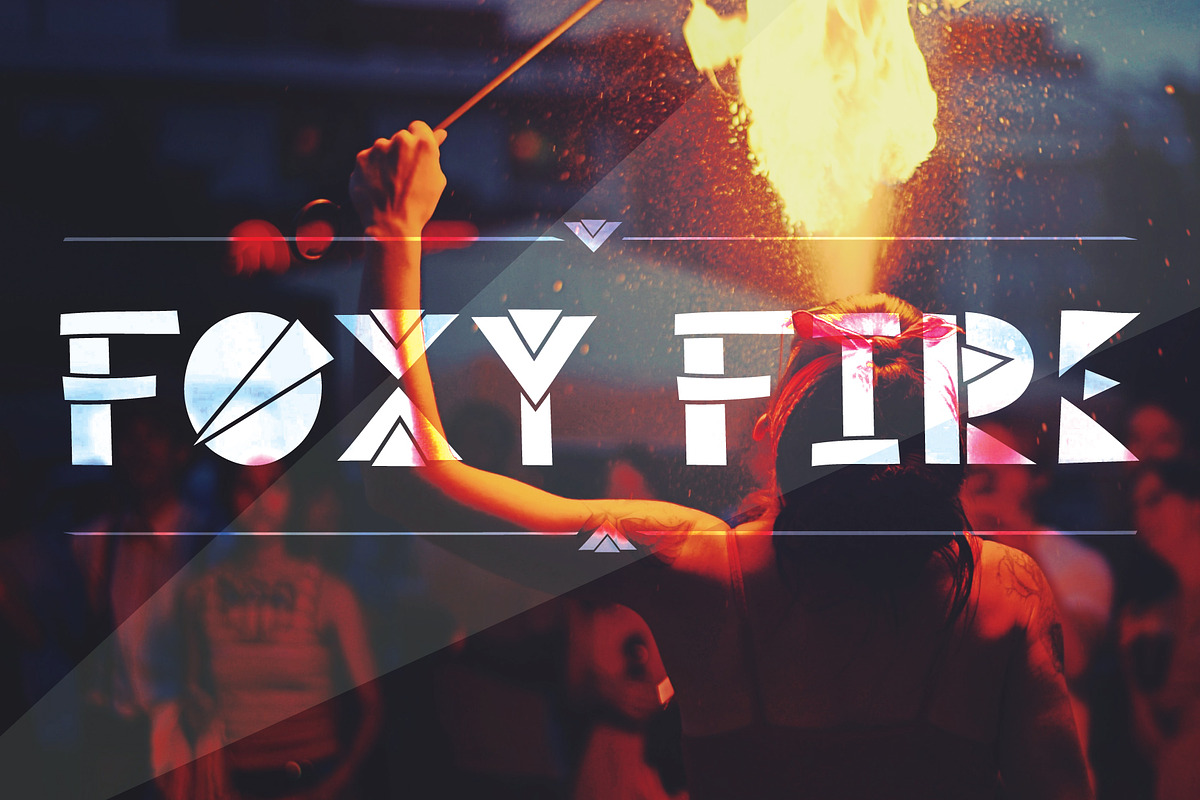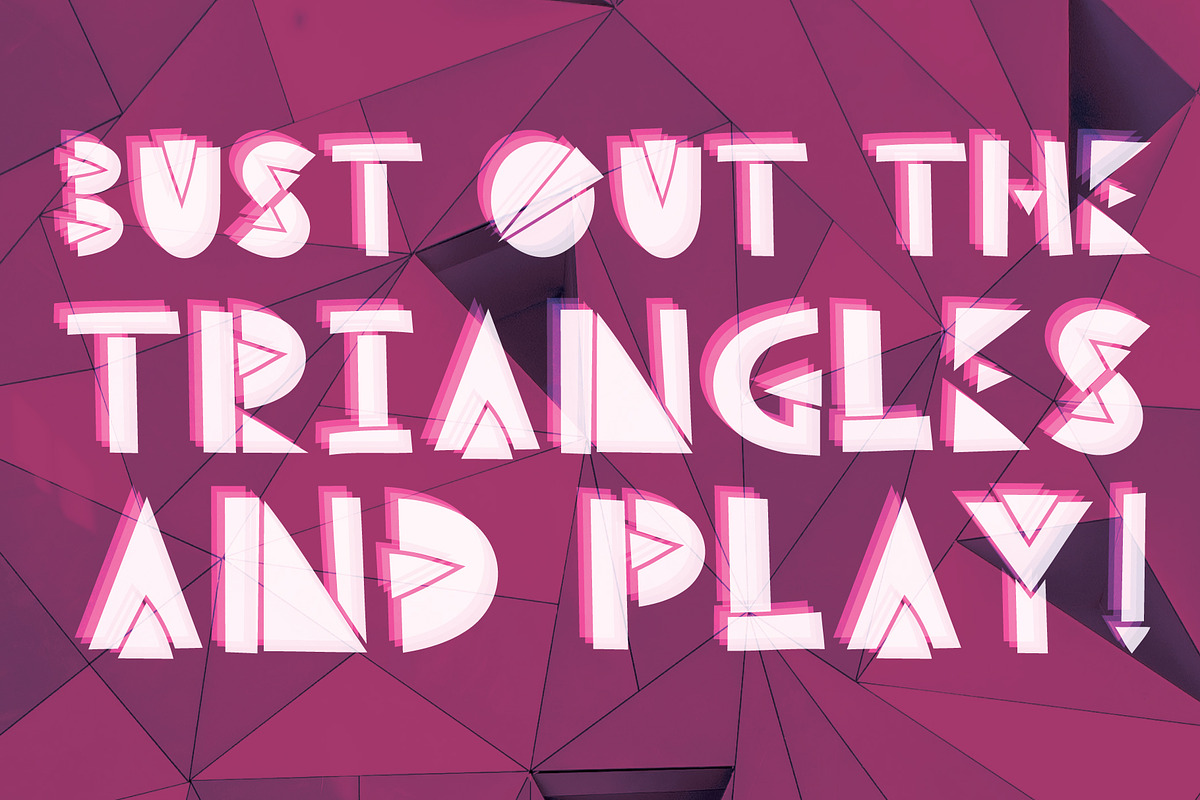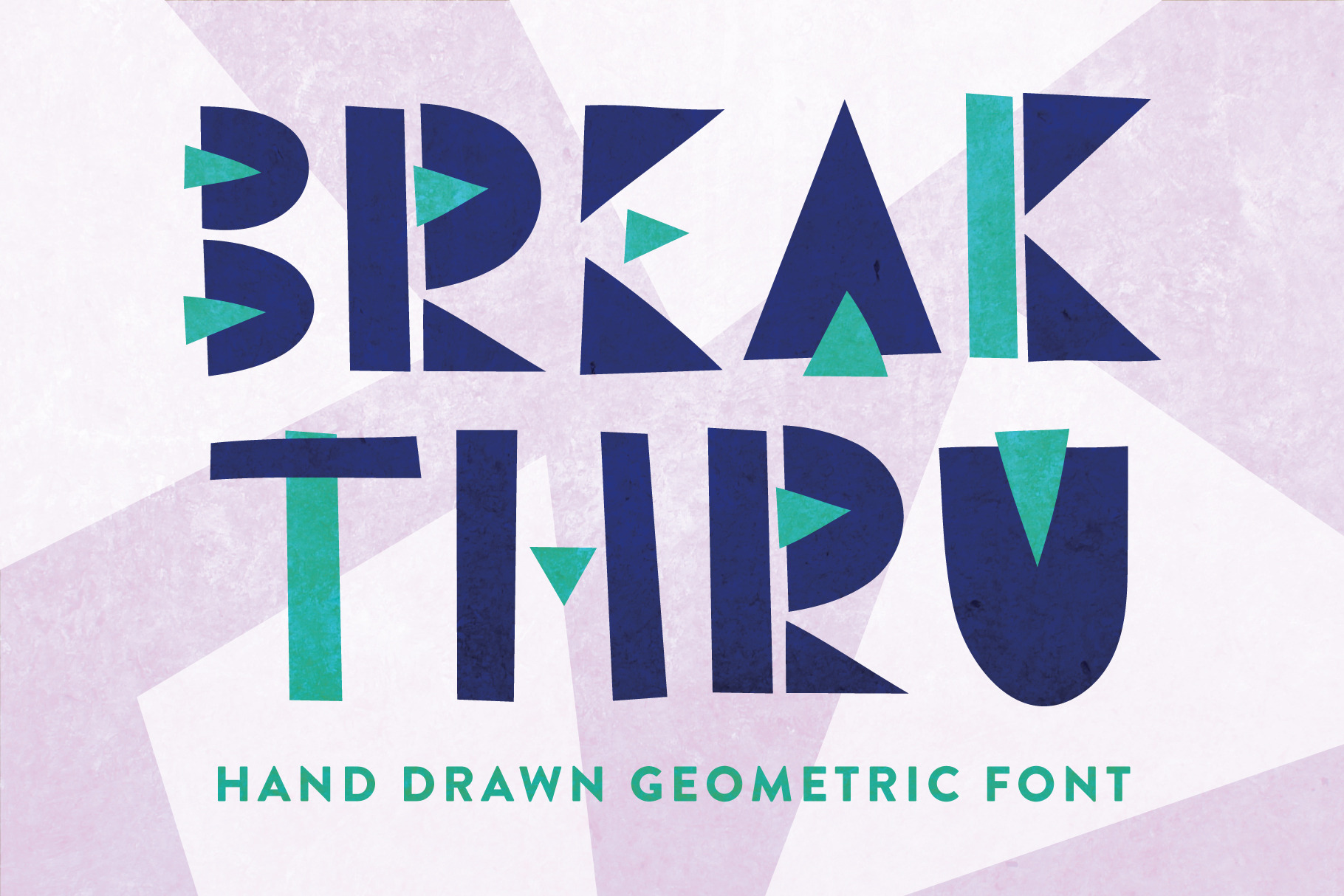
Break Thru - Geometric Font
BREAK THRU AND BREAK DANCE
I present to you "Break Thru" a hand drawn geometric font.
CHARACTERS INCLUDED:
- Uppercase alphabet A-Z
- Small caps for lowercase A-Z
- Numbers 0-9
- Special characters !?,.:;/'"